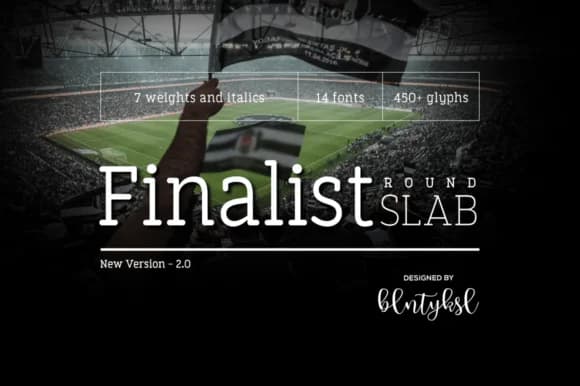
1 / 8About Finalist Round Slab Font
You're laying out the branding suite for a new natural wine label, and you need something bold enough to hold its own on shelf but refined enough for the back label text. Finalist Round Slab by blntyksl delivers exactly that: a slab serif with gentle curves that feel modern without screaming novelty or trend-chasing. The rounded edges soften what could be a heavy typeface, giving it surprising warmth while keeping its geometric precision and structural strength intact.
Where brands need visual confidence, this font delivers. High-end product packaging labels benefit from its bold weight and solid presence, while luxury beauty branding gains instant sophistication from its clean, minimal proportions. Fashion lookbooks and brand guidelines feel contemporary with these letterforms, and boutique cafΓ© menus read with an informal elegance that feels curated rather than generic. From headlines to small label copy, minimal letterforms stay legible across the full range of sizes.
As a dependable choice for logos and wordmarks, rounded geometry and slab structure come together in a modern, grounded way. Each letter commands attention without relying on gimmicks or unnecessary flourishes, letting your content take center stage. Get it on Creative Fabrica and see how this typeface shapes your next brand identity or design system.
Finalist Round Slab Font is a slab serif font that shines as a display or heading face. Pair it with a clean sans-serif or serif font for body text β the contrast creates a clear hierarchy while the two styles stay balanced and easy to read.
Finalist Round Slab Font
by blntyksl